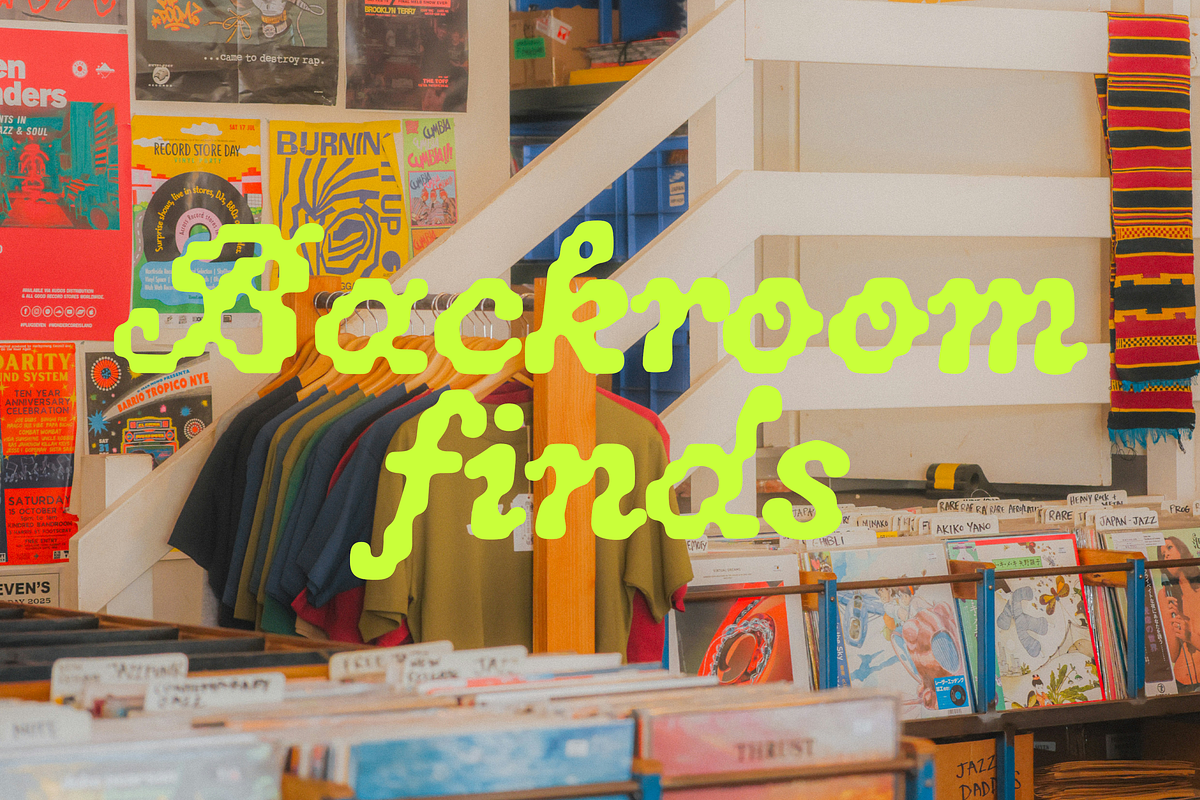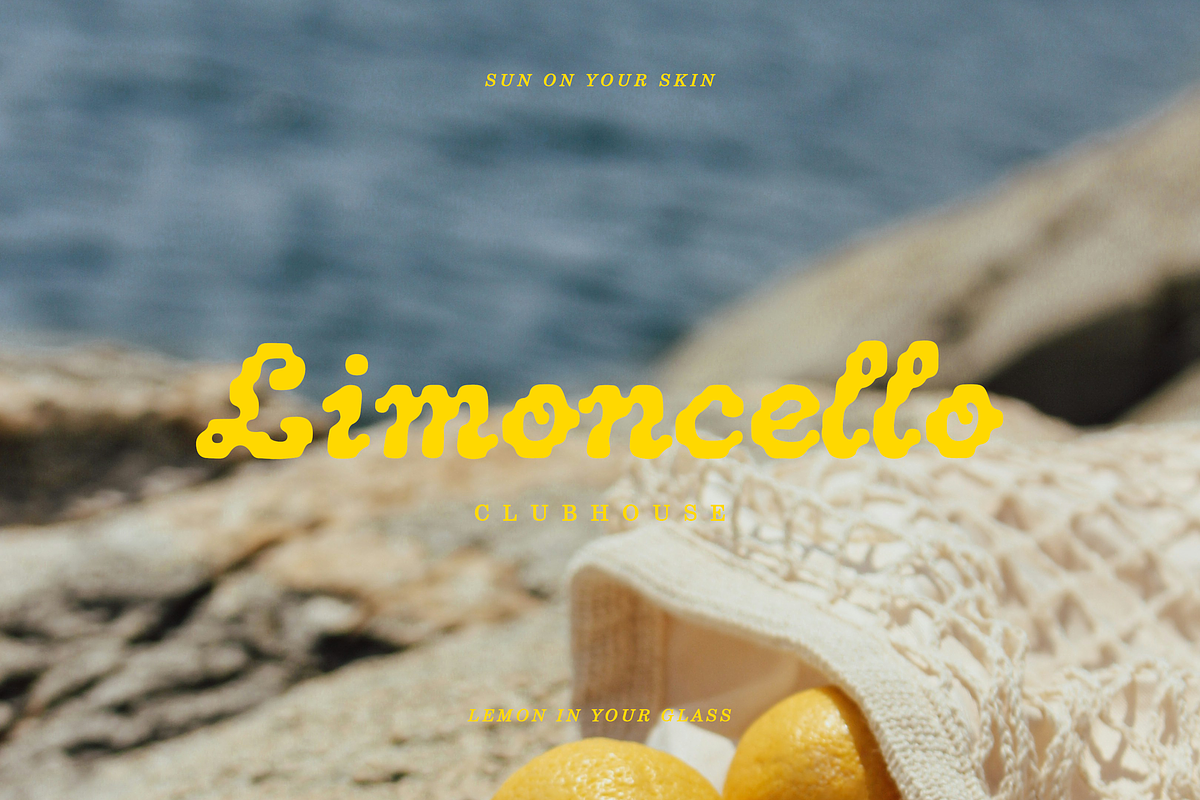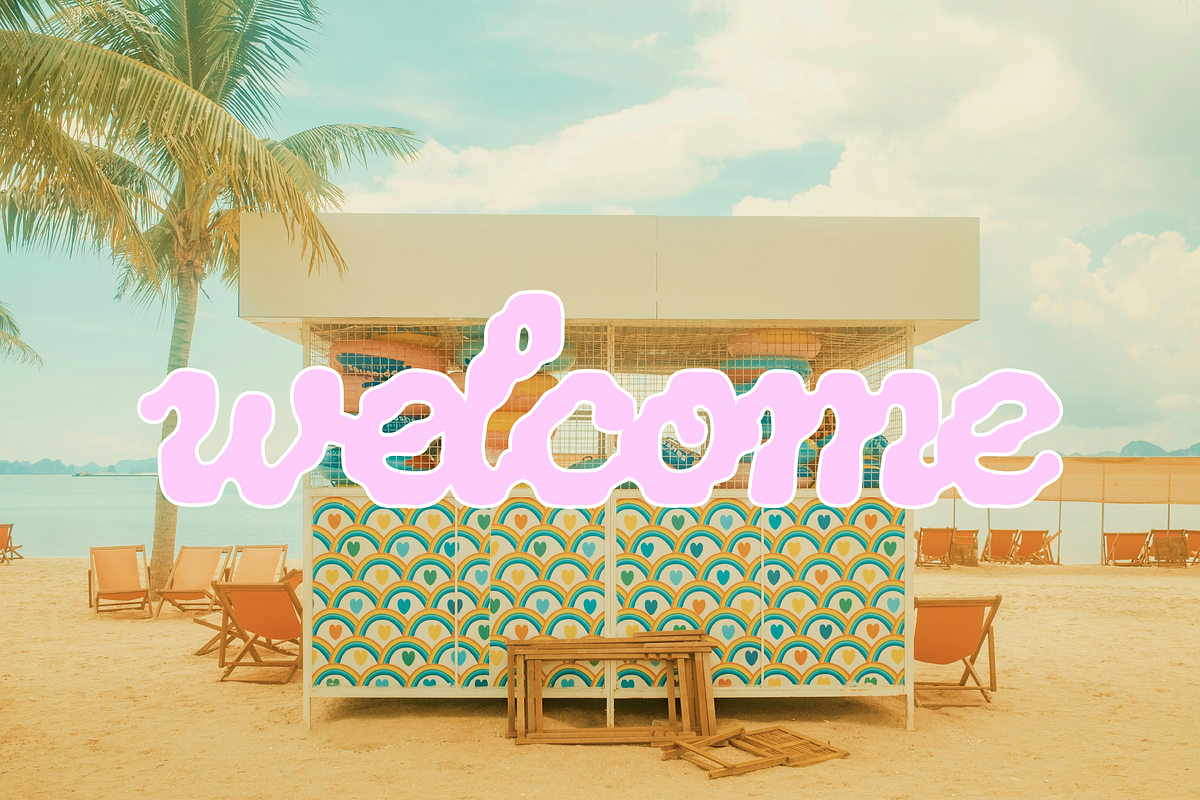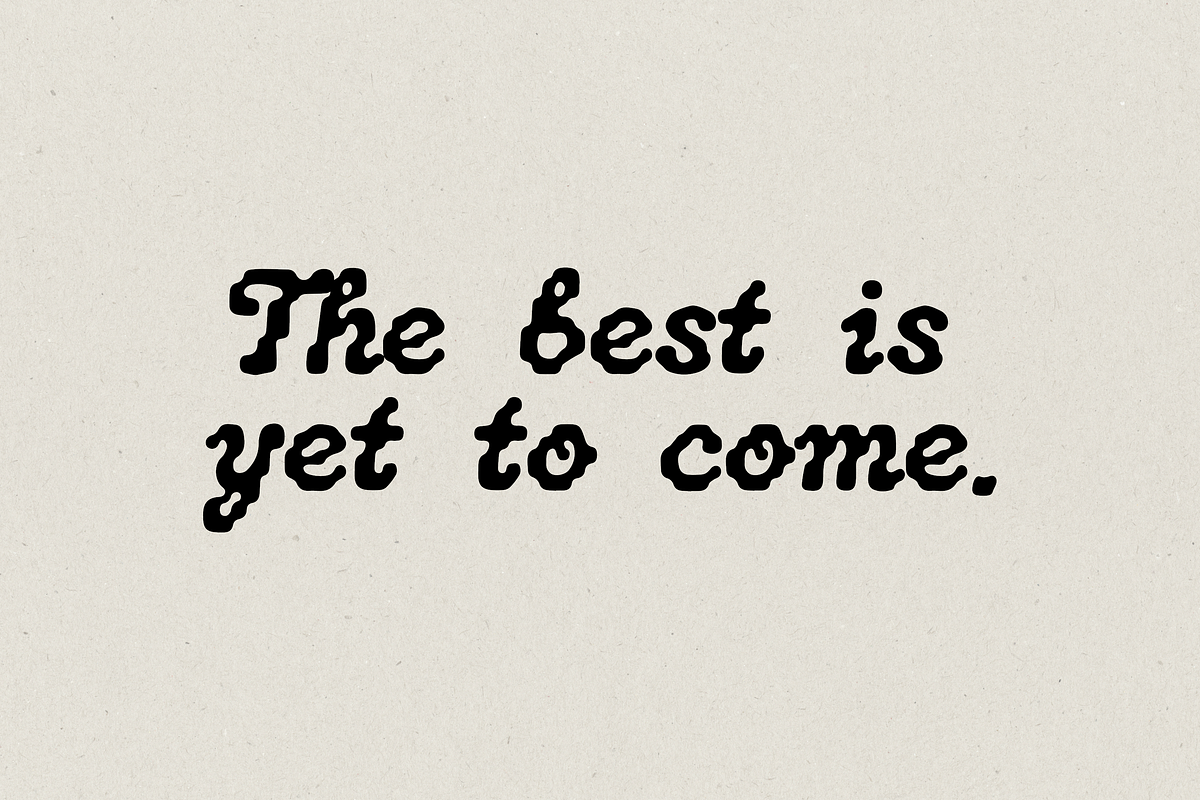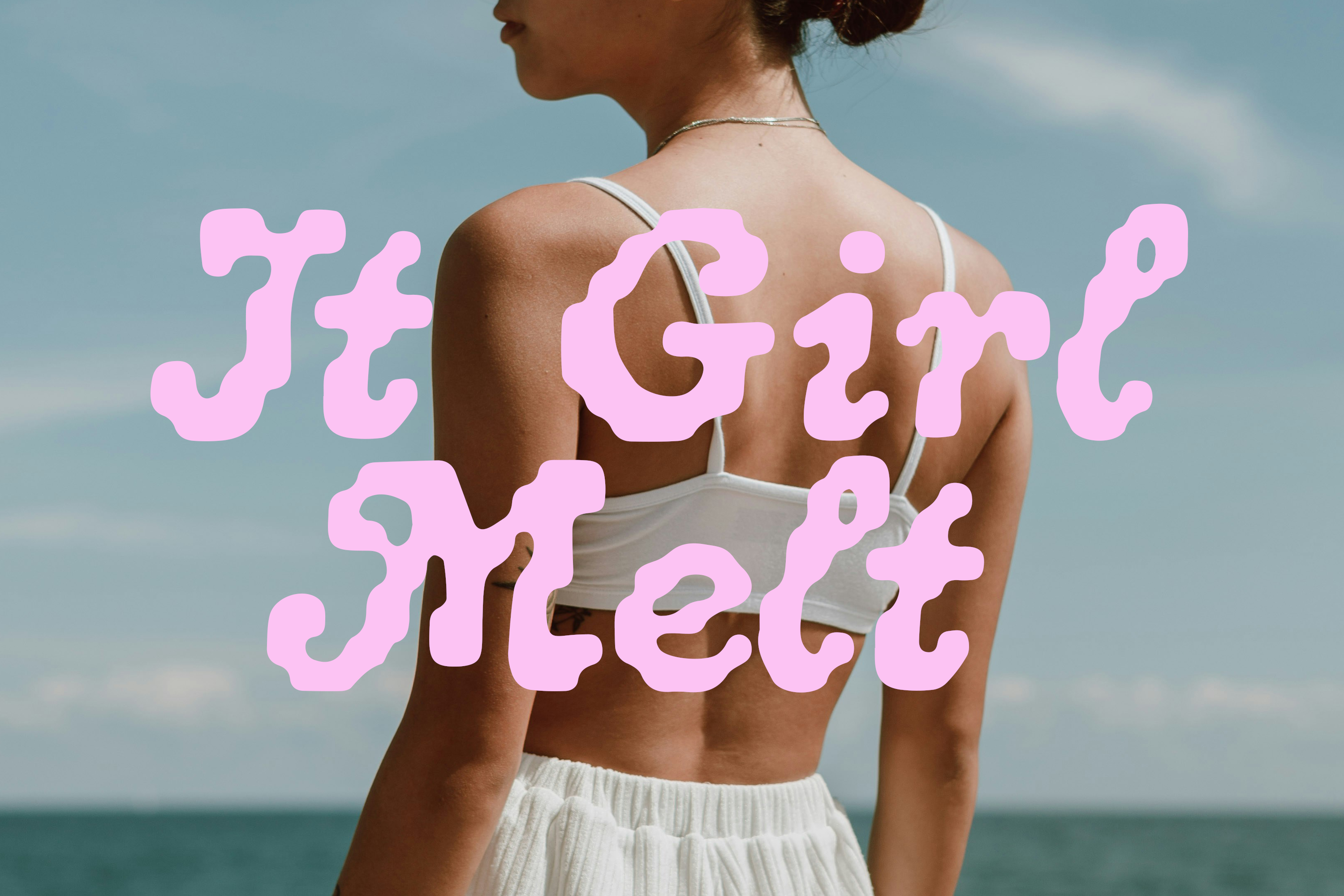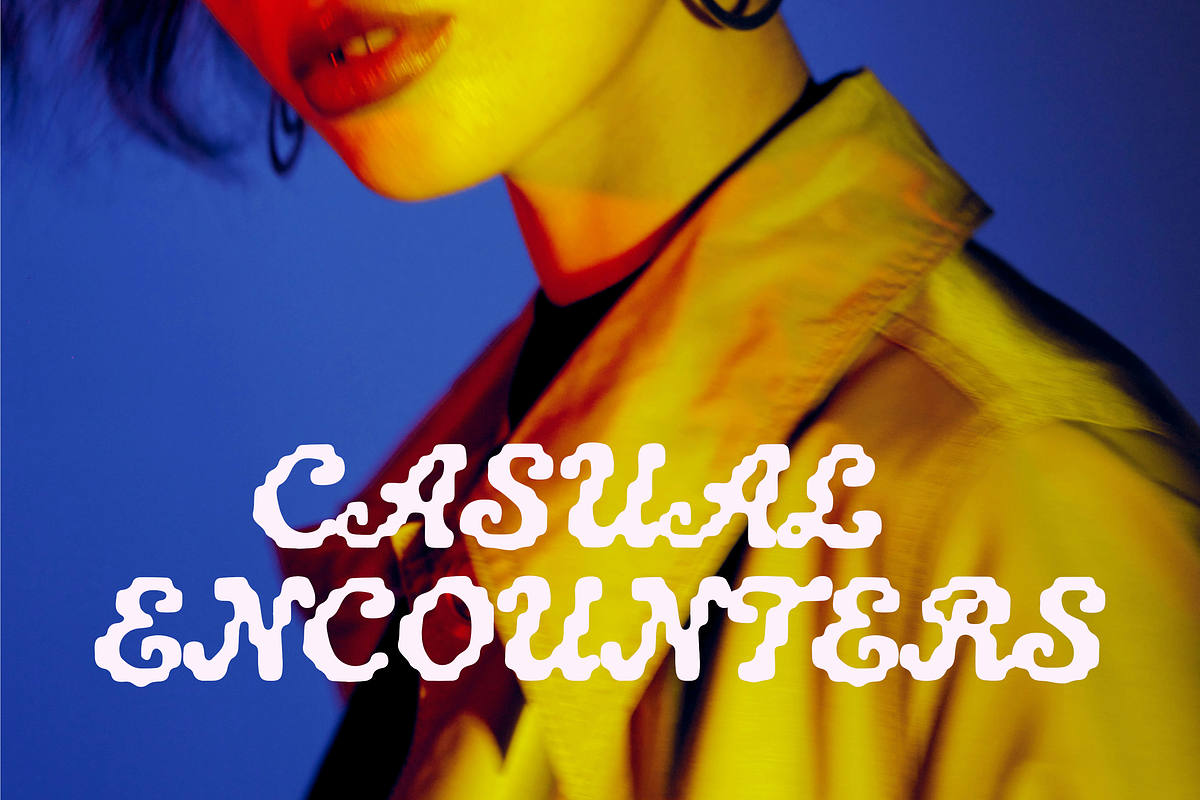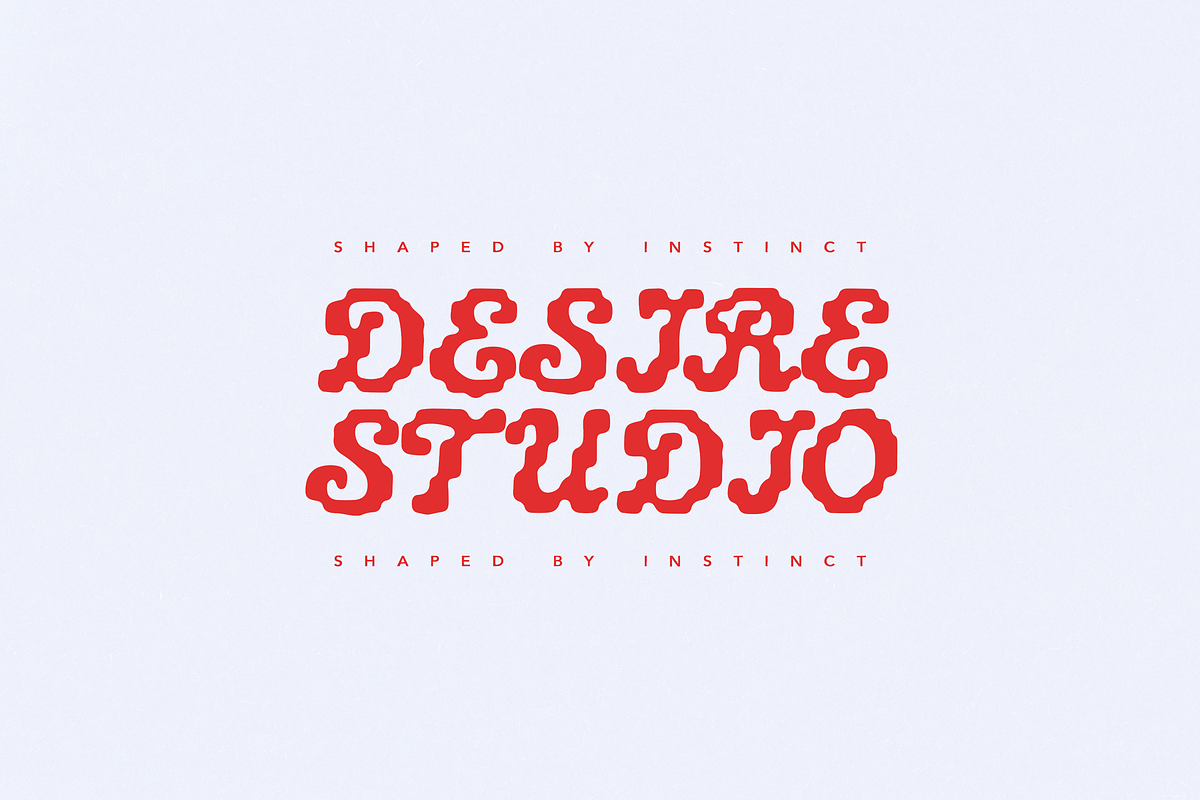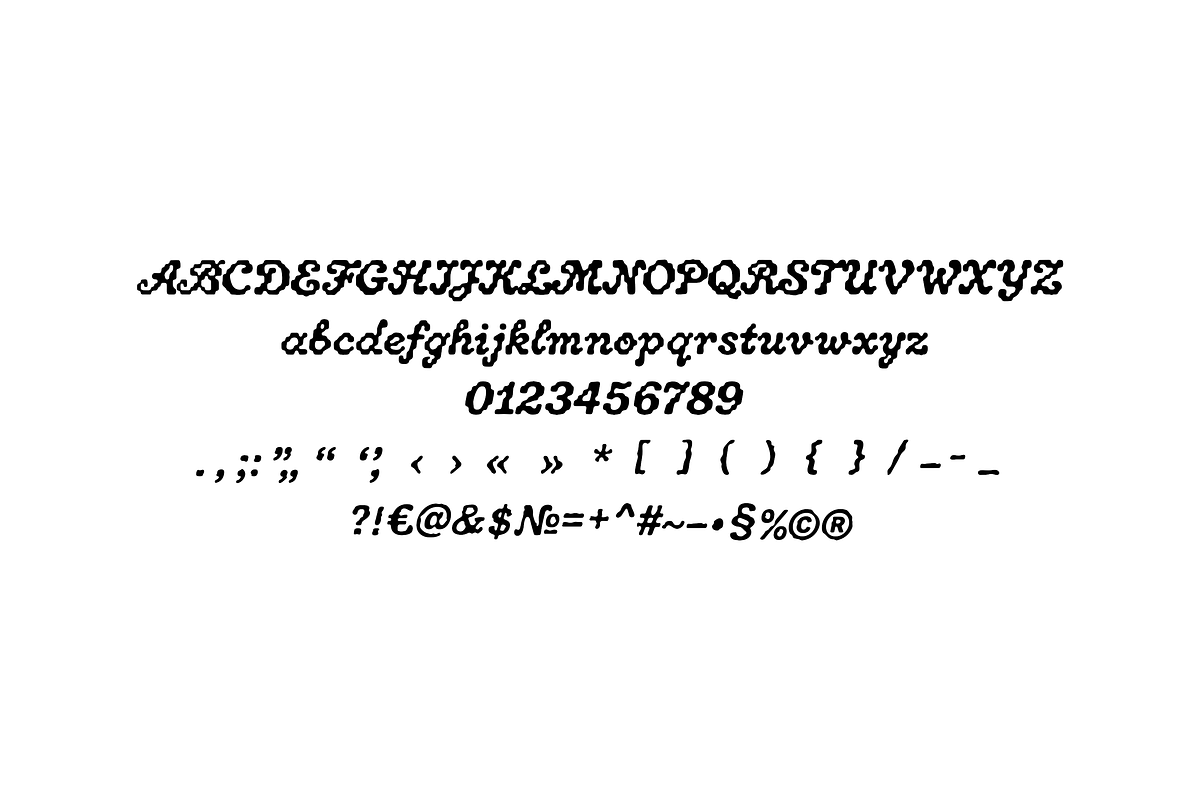
It Girl Melt Font
It Girl Melt is a playful, blob-style display font with a soft, liquid feel and a strong fashion-forward attitude.
The letterforms are intentionally uneven and slightly distorted, creating that perfect balance between cute and chaotic. It feels effortless, a little messy, and confidently imperfect - like off-duty style, backstage moments, and glossy summer moods.
- branding and logos
- posters and editorial layouts
- social media graphics
- packaging and merch
- anything that needs personality and a bold visual voice
This font works best at larger sizes where its organic shapes and unique character can really stand out.